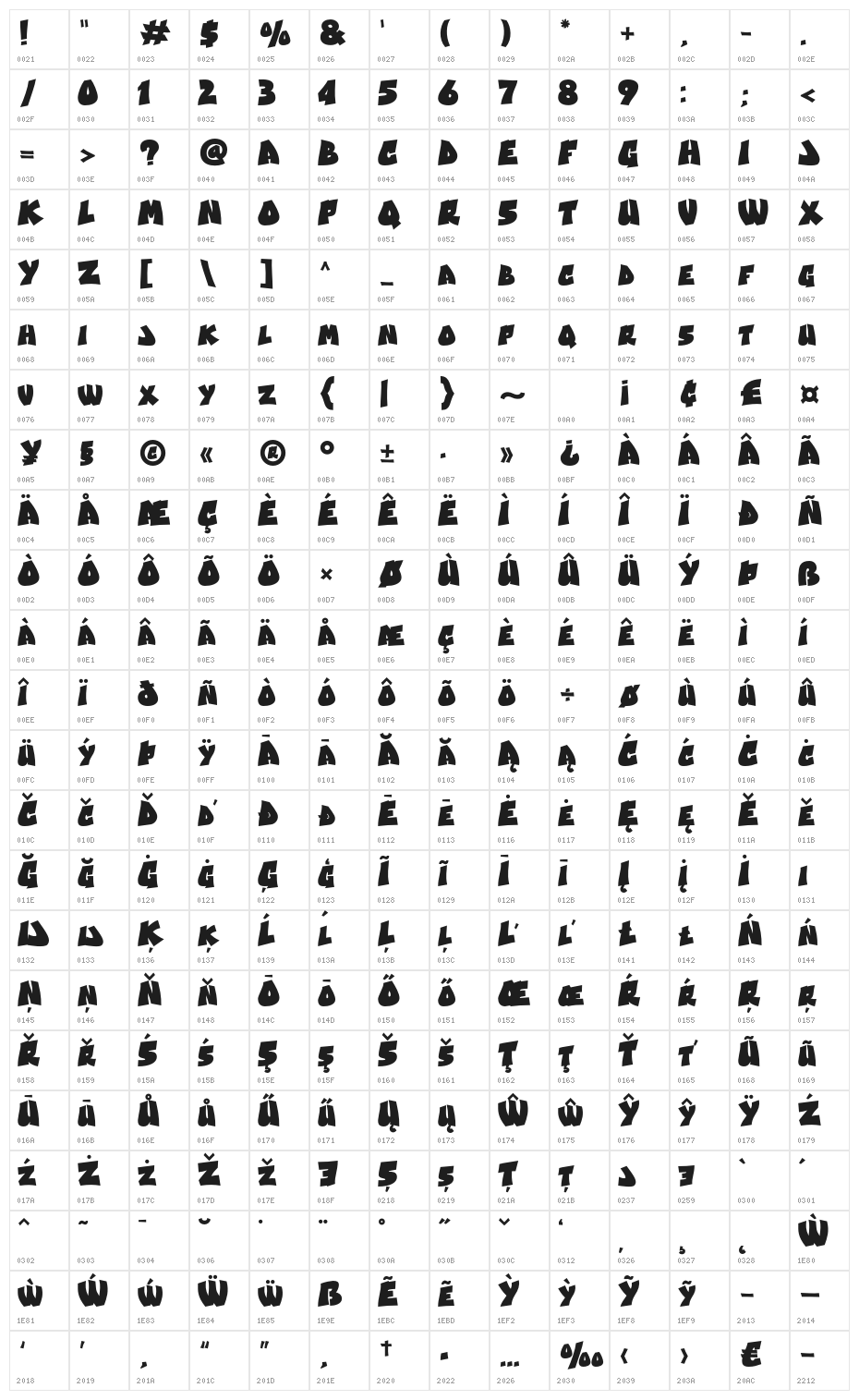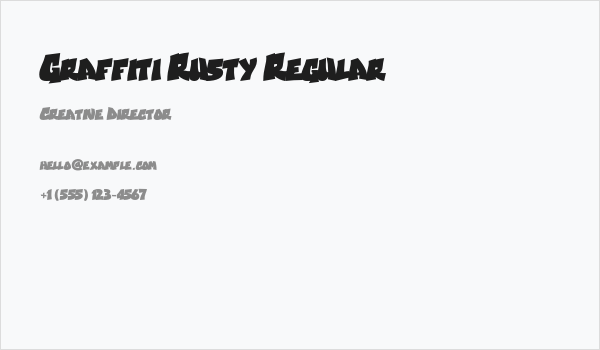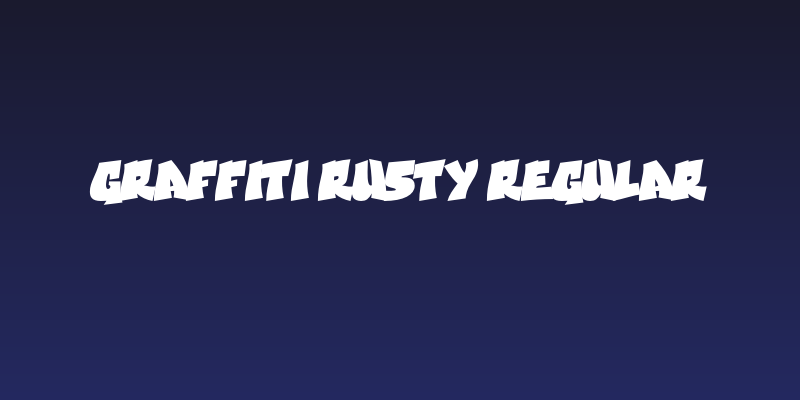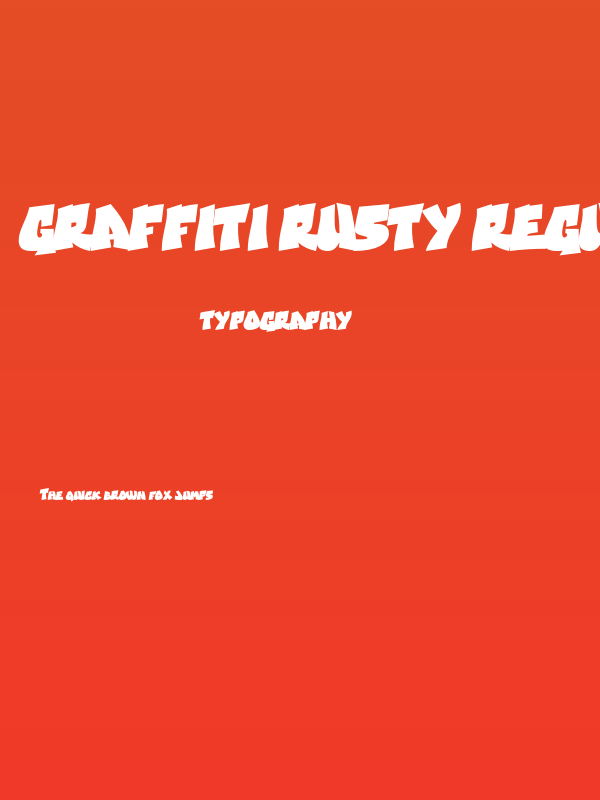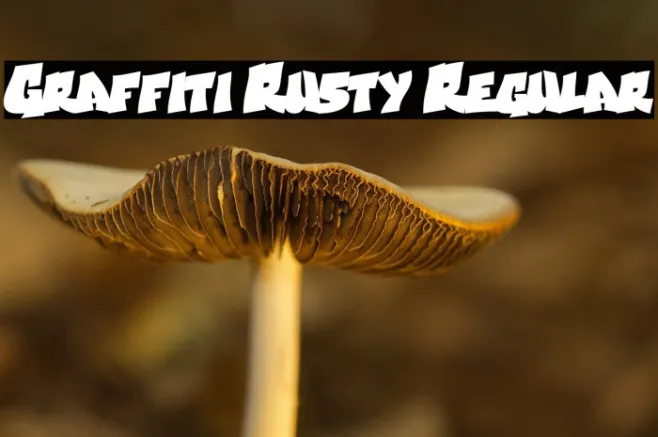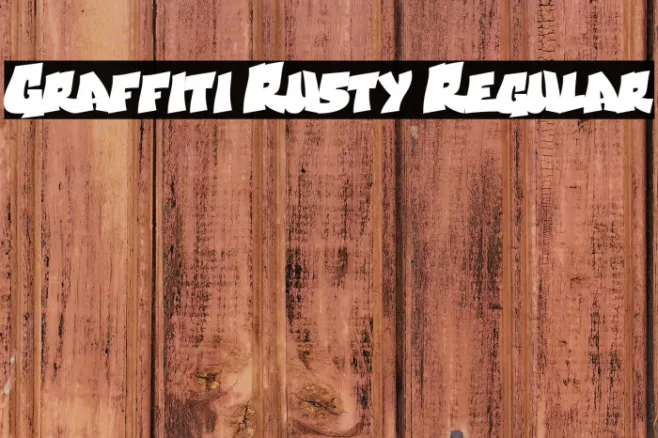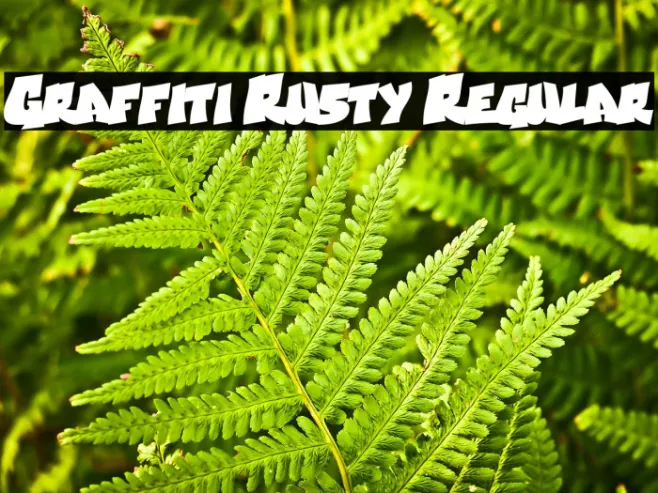
Graffiti Rusty Regular Font
Graffiti Rusty Regular Description
This font exudes a bold and edgy graffiti style, characterized by its thick, angular strokes and dynamic, energetic forms. The letters are designed with a sense of movement and flair, reminiscent of street art and urban culture. The uppercase and lowercase letters maintain a consistent style, with exaggerated curves and sharp edges that create a sense of urgency and vibrancy. The numbers and special characters follow the same aesthetic, making the font suitable for projects that require a strong, impactful visual presence. Its unique style is perfect for capturing attention and conveying a sense of rebellion and creativity.
| Overall Style | Urban, Edgy, Graffiti |
| Proposed Projects | Ideal for street art designs, urban-themed posters, music album covers, and edgy branding projects. |